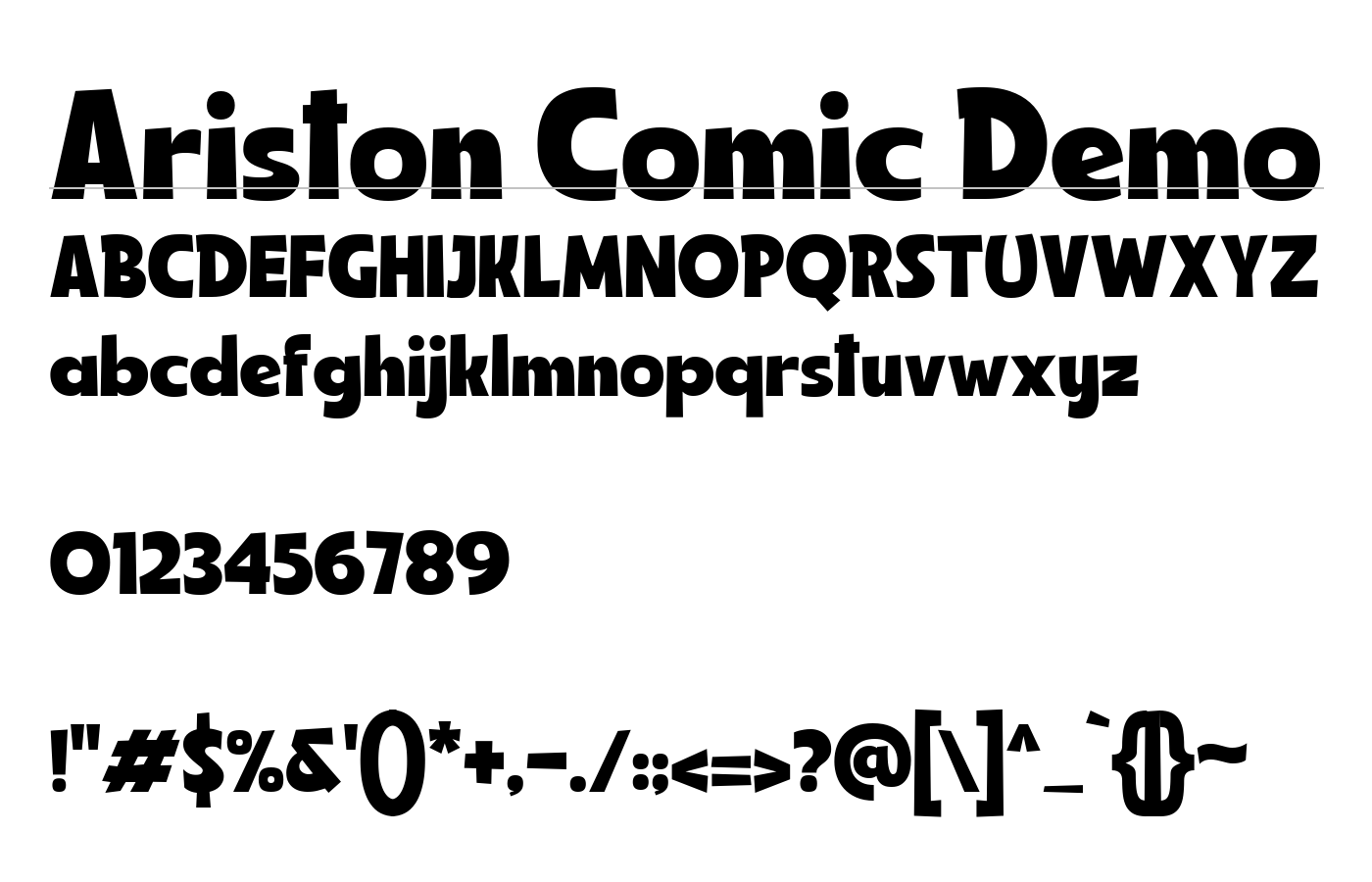
Ariston Comic Demo is a bold, playful sans serif font with a slightly irregular, hand-drawn feel that adds a lively and informal personality. Its chunky letterforms and moderate contrast create a friendly, comic-style appearance, making it perfect for fun headlines, posters, children's materials, and casual branding where a cheerful and approachable tone is desired. This font works well when you want to capture attention with a unique, energetic style that feels both modern and whimsical.
Ariston Comic Demo Font
About Ariston Comic Demo Font